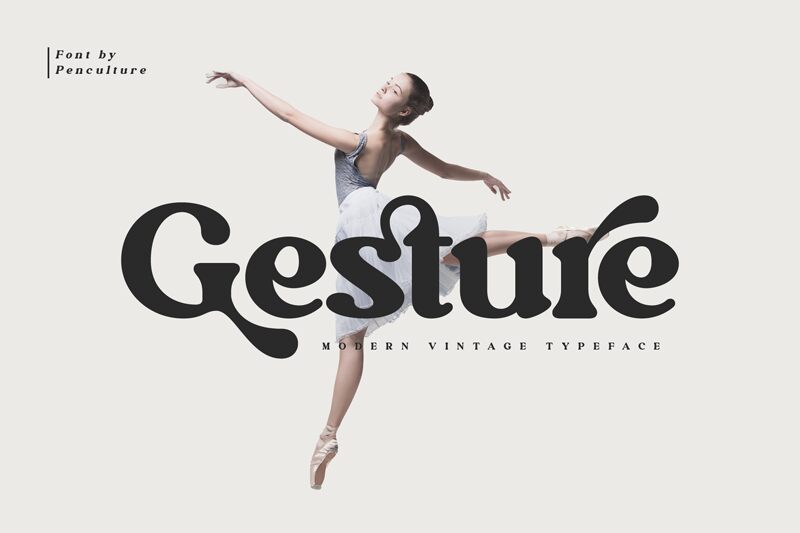
Experience the timeless elegance of Gesture, a vintage serif font designed by Pen Culture. With its bold weight and semi-expanded width, this versatile typeface exudes confidence and sophistication. Perfect for bringing a touch of nostalgia to your branding projects, including logos, packaging designs, and advertising materials. Create striking headlines and captivating body text that effortlessly captures attention with Gesture's refined aesthetic. Elevate your design game and transport your audience to an era of classic charm with this exquisite font choice.
Designed by Revo Farisky from Pen Culture in 2022